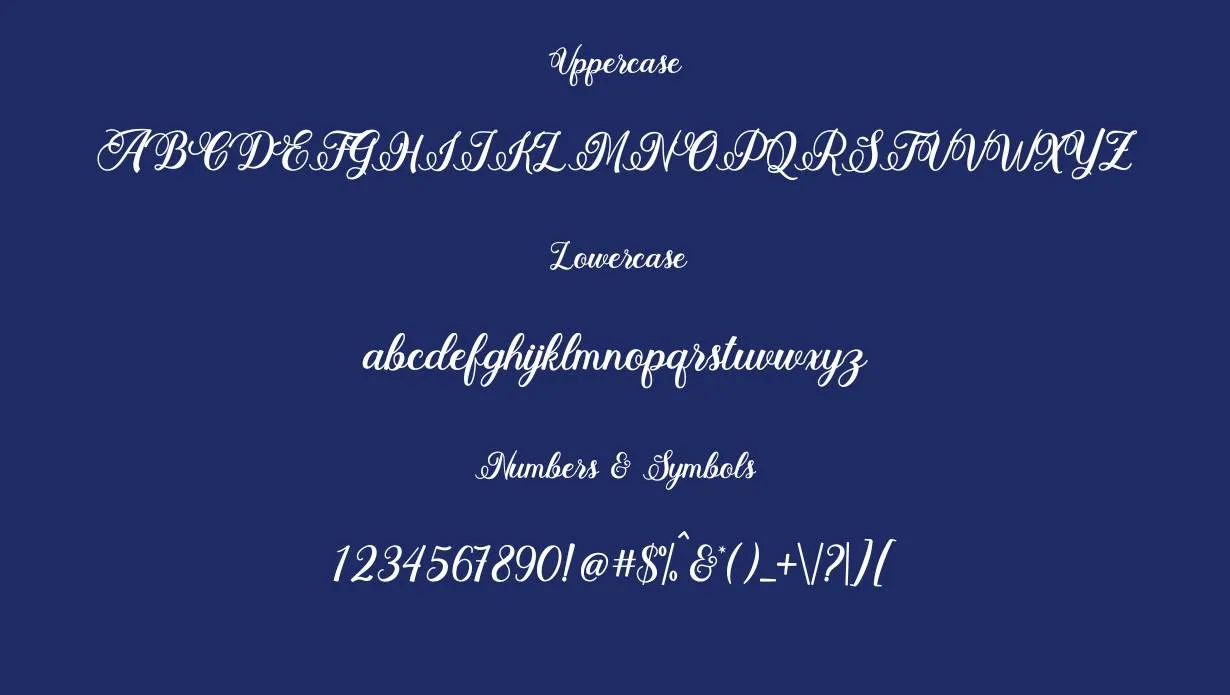
Stayola Font is a typeface with a relaxed and friendly design. It’s often used in projects that aim to create an approachable and welcoming atmosphere, such as personal blogs, product packaging, and social media graphics.
| Name | Stayola Font |
| Designer | Måns Grebäck |